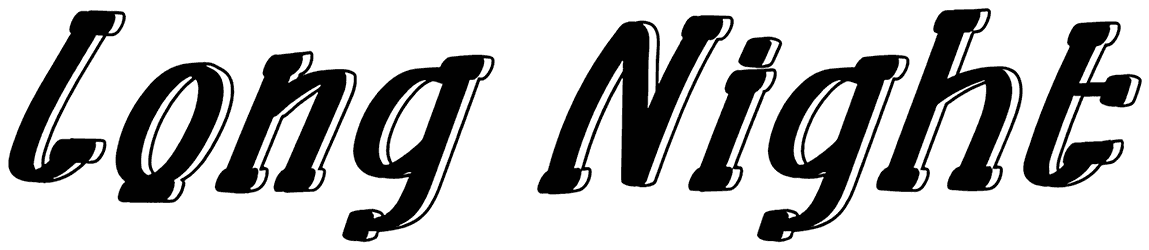
Long Night Font
This shadow font comes with angular letters and carries a vibe of vintage, coolness, momentum, or tenderness. In addition to the aforementioned details, don’t forget to check out our glamorous archive for daily updates.